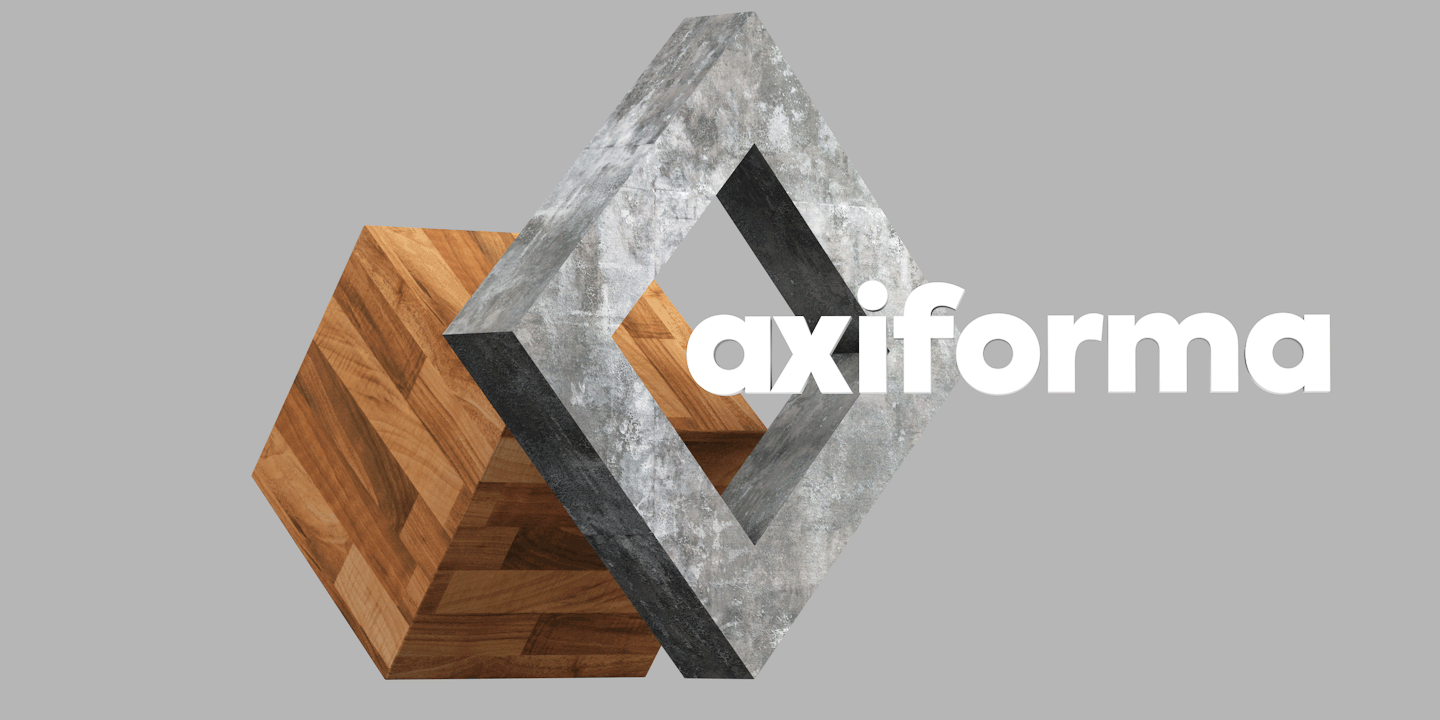
Axiforma Font excels in tech company branding, software interface design, corporate identity systems, modern web applications, startup presentations, digital product packaging, fintech platforms, and contemporary business communications. This versatile sans-serif typeface brings systematic clarity and professional sophistication to any project requiring clean, highly functional typography with modern corporate appeal.
What makes Axiforma Font exciting is its perfect synthesis of geometric precision and humanistic warmth that creates optimal readability across all digital and print environments. The font features mathematically refined letterforms with subtle optical corrections that ensure exceptional performance at any size, from tiny mobile interfaces to large-scale environmental graphics. Its systematic design approach and carefully calibrated spacing make complex information instantly accessible, making it ideal for organizations that prioritize user experience and clear communication. The typeface's contemporary professionalism ensures immediate recognition of innovation and reliability.
The Axiforma Font family includes Thin, Light, Regular, Medium, Bold, and Black weights, each available in upright and italic variations. The family offers comprehensive international language support, advanced OpenType features, and specialized characters that enhance its versatility for global technology and business applications. These variants provide designers with complete flexibility for creating cohesive brand systems and sophisticated information hierarchies.
Whether you're designing digital interfaces, corporate communications, or technology brands, Axiforma Font Free Download delivers the systematic excellence that defines modern professional typography. Its combination of geometric precision and human-centered design makes it perfect for communicating innovation, reliability, and forward-thinking vision with authentic contemporary appeal and universal accessibility across all platforms.